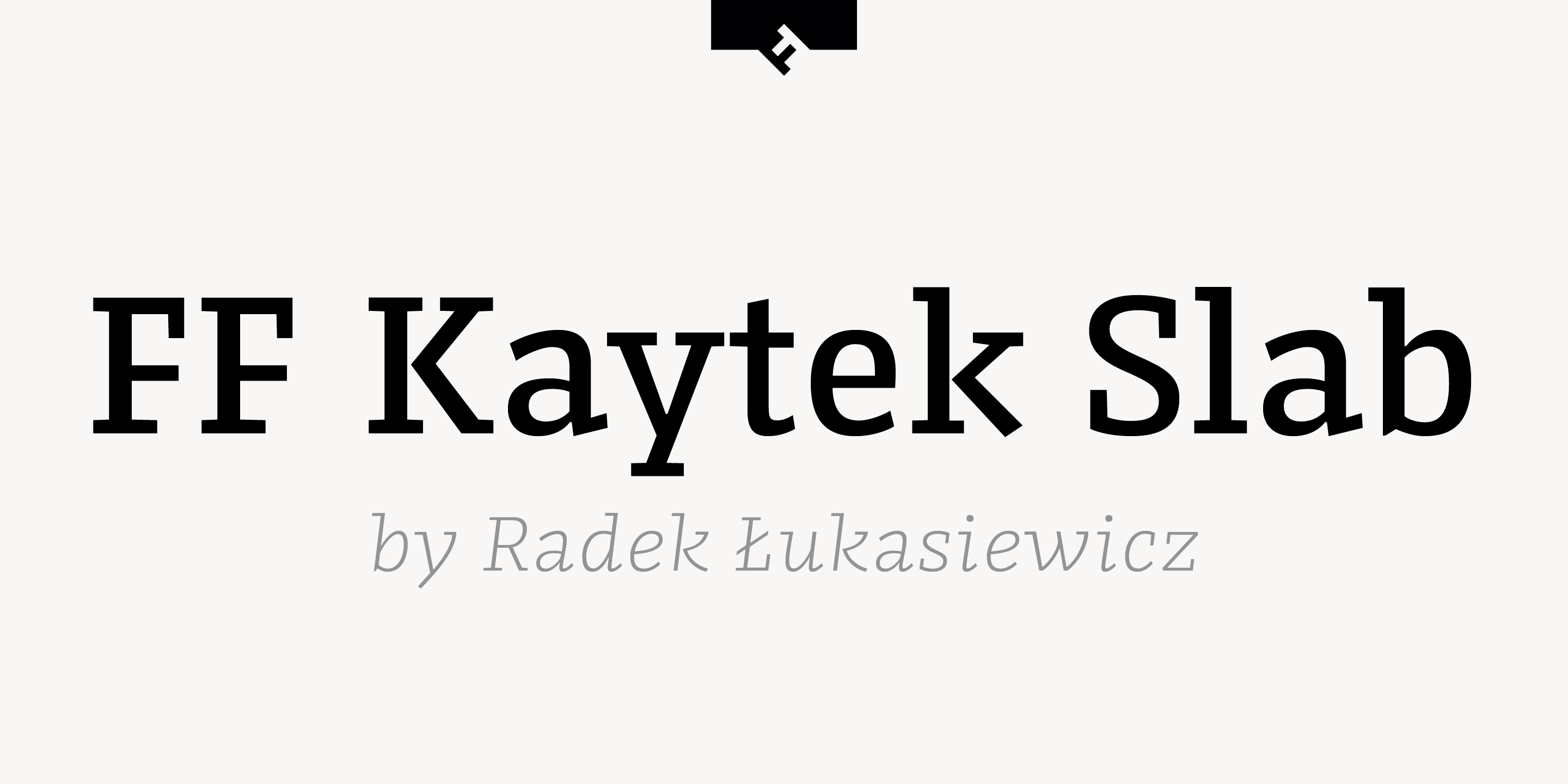
FF Kaytek Slab Font is perfect for newspaper headlines, magazine layouts, editorial designs, book titles, industrial branding, tech company logos, architectural signage, and contemporary poster designs.
What makes FF Kaytek Slab Font exciting is its bold, contemporary slab serif design that combines traditional readability with modern geometric precision. This striking typeface features robust letterforms with distinctive slab serifs that create strong visual impact while maintaining excellent legibility, making it ideal for both headline and body text applications across various media.
The FF Kaytek Slab Font family includes light, regular, medium, and bold weights, plus italic variations and extended character sets that provide comprehensive typographic solutions for complex editorial and branding projects.
This powerful typeface delivers exceptional versatility and visual strength, making FF Kaytek Slab Font Free Download an indispensable tool for modern designers. The font's commanding presence makes it perfect for headlines that demand attention while its refined structure ensures comfortable reading in longer texts. Publishing houses and media companies particularly value its ability to create clear information hierarchy and brand consistency. The expertly designed letterforms guarantee optimal performance across all platforms, from digital screens to high-quality print materials. Whether you're designing cutting-edge magazines or developing robust corporate identities, this font provides the perfect balance of authority and accessibility. Creative professionals consistently choose this typeface for projects requiring that ideal combination of editorial excellence and contemporary design appeal.